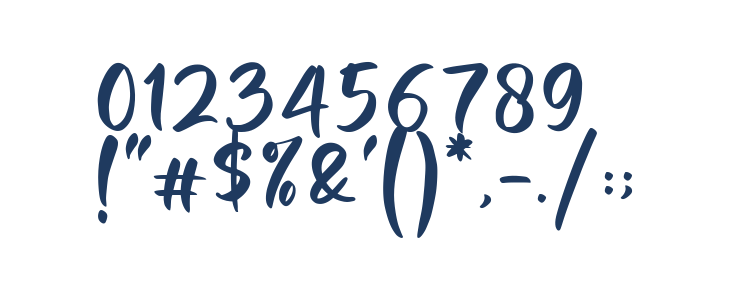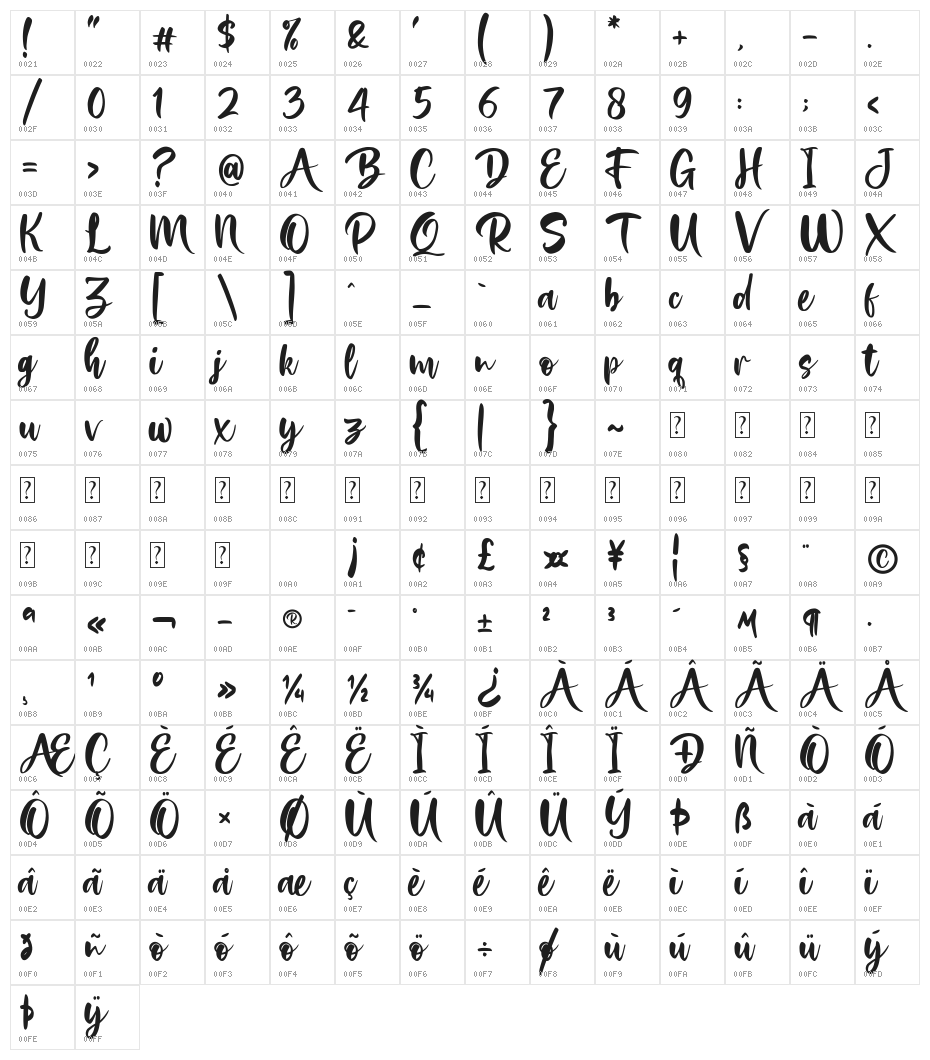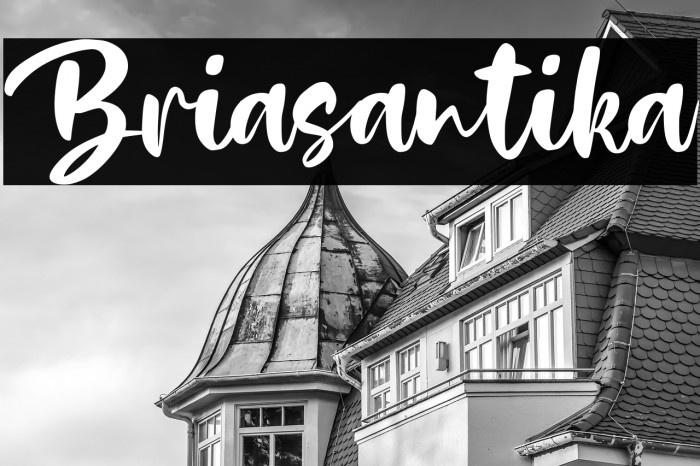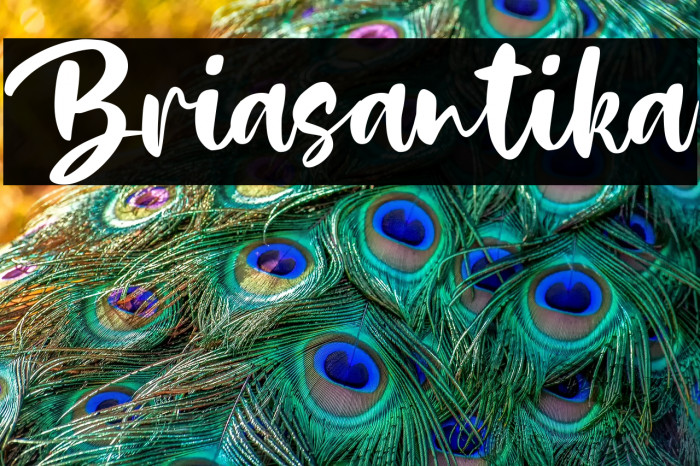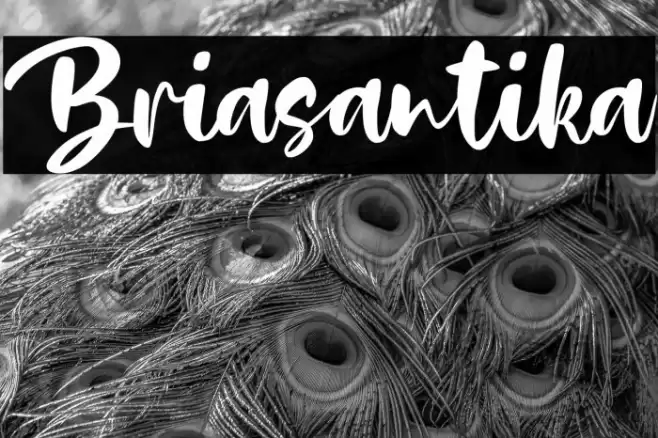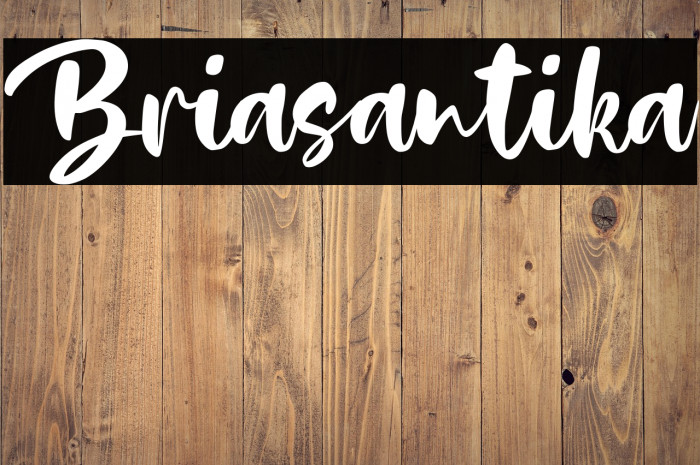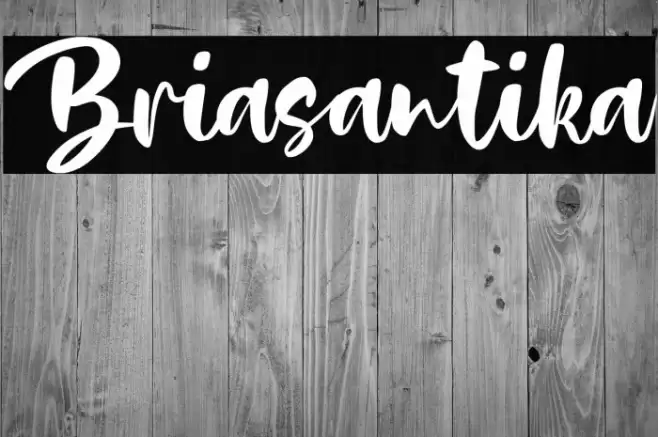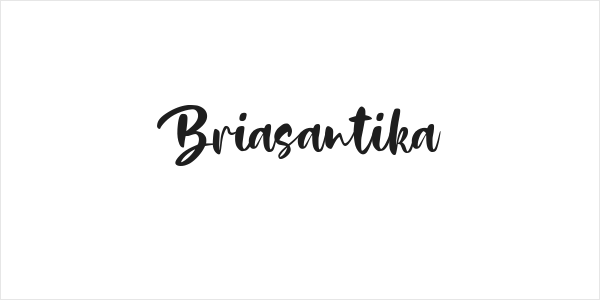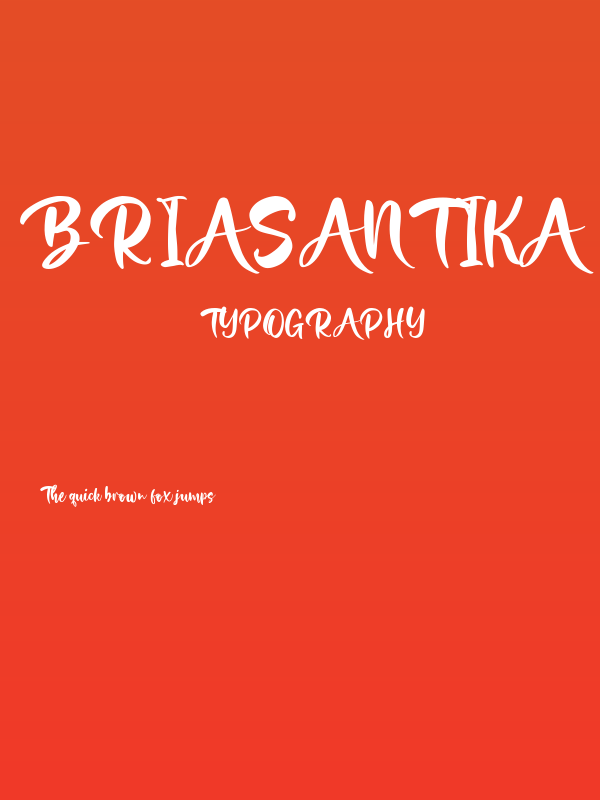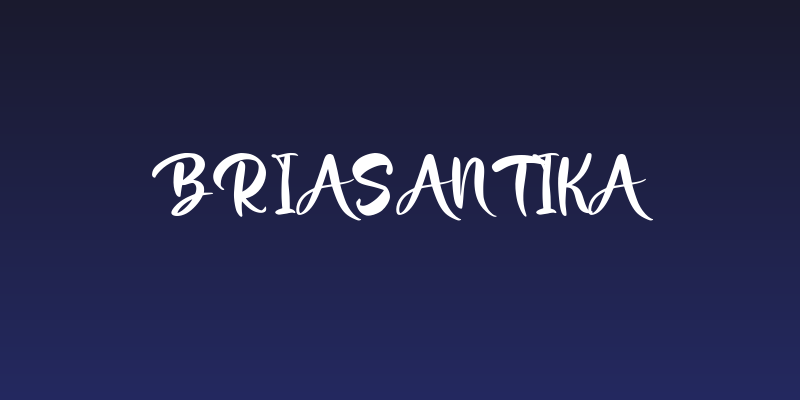
Briasantika Font
Briasantika Description
This font features a bold and expressive script style with a handwritten appearance. The uppercase letters are elegantly curved with a consistent flow, while the lowercase letters maintain a playful and dynamic form. The numbers are bold and clear, complementing the overall style. Special characters are creatively designed, adding to the font's versatility. The strokes are thick, providing a strong visual impact, and the overall design is both modern and artistic, making it suitable for a variety of creative projects.